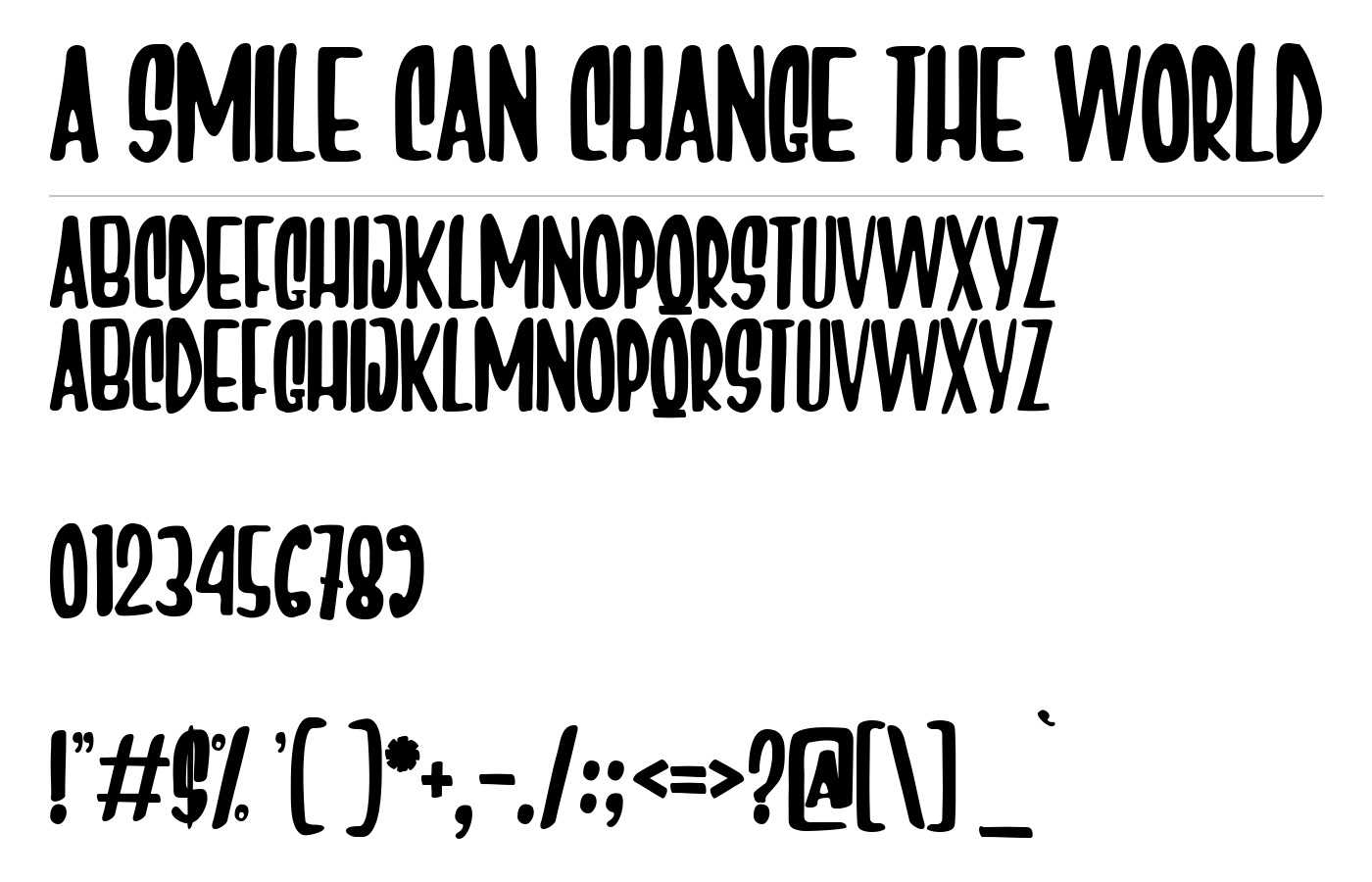
"A Smile Can Change The World" is a vibrant and quirky sans serif font with a condensed, tall stature and playful rounded edges. Its uneven, hand-drawn style evokes a casual, friendly, and approachable feel, making it ideal for cheerful logos, informal headlines, or creative projects that want to express warmth and personality. This font works well where a lively and unique character is needed to engage viewers in a fun and memorable way.
A Smile Can Change The World Font
About A Smile Can Change The World Font